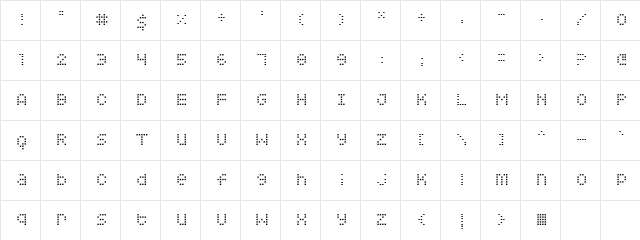
Squarodynamic 01 Regular
Design Context for Squarodynamic 01 Typeface
Squarodynamic 01 is a composed and adaptable typeface that performs quietly and consistently across a wide range of design contexts.